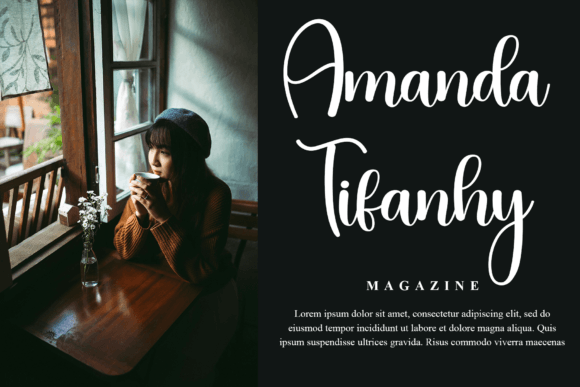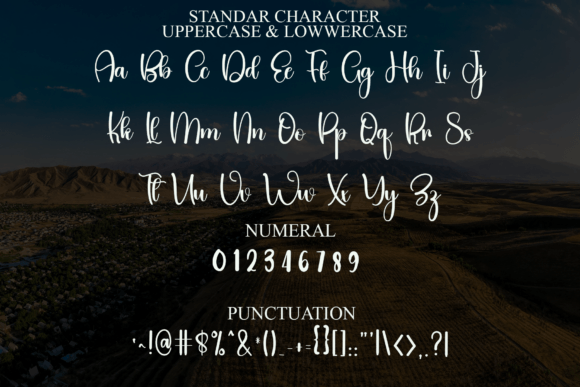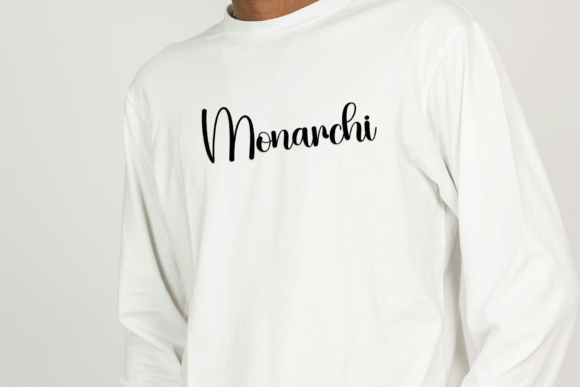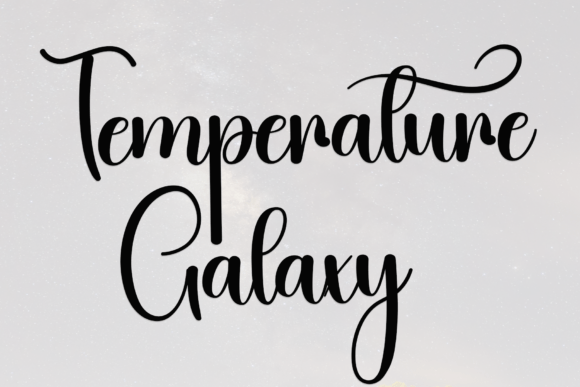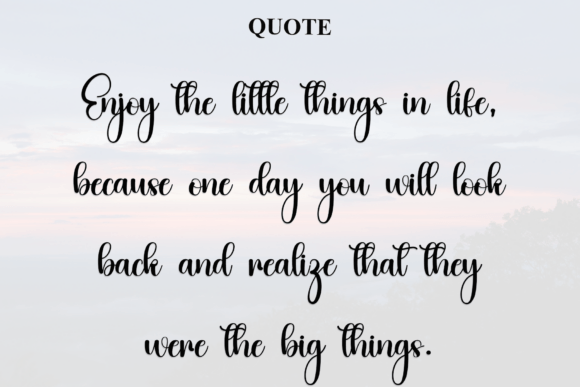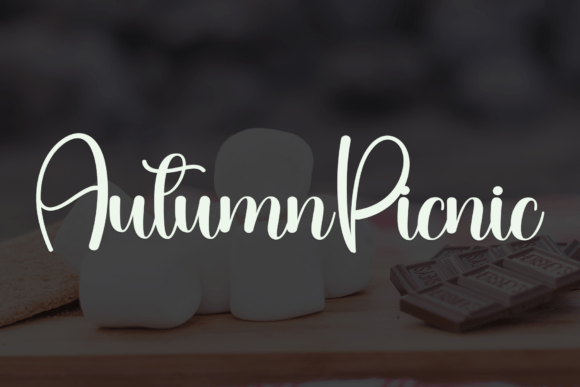
Creating Cozy Memories with Autumn Memories Font
Do you ever find yourself lost in the pages of a vintage journal or the handwritten notes of a loved one? The imperfections and quirks of handwritten text have a way of capturing our attention and evoking memories. For designers, this is a golden opportunity to infuse their projects with a personal touch.
That’s where Autumn Memories Font comes in – a bold, handwritten font that embodies the warmth and coziness of the season. With its thick, natural letters, Autumn Memories Font is perfect for projects that require a friendly and approachable feel. Whether you’re designing a wedding invitation, a holiday card, or a cookbook, this font is sure to bring a sense of nostalgia and charm.
For designers, Autumn Memories Font is a valuable addition to their toolkit. Its unique, handwritten style offers a refreshing alternative to more traditional fonts, allowing you to add a personal touch to your designs and stand out from the crowd.
Autumn Memories Font Key Features
- Font Family: Autumn Memories, with multiple styles and weights available.
- Character Count: The font includes a wide range of characters, including Latin, Cyrillic, and Greek scripts, with over 2000 glyphs.
- Unique Characteristics: The Autumn Memories font features a unique, hand-drawn design with intricate details and subtle texture, evoking a sense of nostalgia and warmth.
Designer Review: Autumn Memories Font
As a designer, I was excited to try out the Autumn Memories Font, and I must say it’s a mixed bag. On the one hand, it has some great qualities that make it suitable for certain projects. ✨ The font’s elegant, handwritten feel is perfect for adding a touch of sophistication to invitations, greeting cards, or other stationery items. The subtle imperfections and flourishes give it a sense of character that’s hard to replicate with more traditional fonts.
✨ Another plus is the font’s versatility. It comes in a range of weights and styles, making it easy to adapt to different design needs. Whether you’re looking for a bold, eye-catching headline or a delicate, cursive text, Autumn Memories has got you covered.
However, there are some limitations to consider: ⚠️ The font may not be the best choice for projects that require a high level of precision or uniformity. The handwritten feel can sometimes look sloppy or uneven, especially at smaller font sizes. Additionally, the font’s imperfections may not be suitable for clients who prefer a more traditional, clean look.
Overall, I’d say the Autumn Memories Font is a solid choice for designers who want to add a touch of elegance and whimsy to their projects. Just be aware of its limitations and use it judiciously.
- ✨ Elegant, handwritten feel perfect for invitations, greeting cards, and stationery
- ✨ Versatile, comes in range of weights and styles
- ⚠️ May not be suitable for projects requiring precision or uniformity
- ⚠️ Imperfections may look sloppy or uneven at smaller font sizes
Tips for Getting the Most Out of Autumn Memories Font
For the best results, pair Autumn Memories Font with warm and earthy colors, and use it in combination with other fall-themed elements, such as leaves and pumpkins.
Experiment with different font sizes and styles to create visual interest and hierarchy in your designs.
Autumn Memories Font is perfect for:
- Fall-themed invitations and announcements.
- Seasonal marketing materials and promotional campaigns.
- Personalized gifts and stationery.
- Graphic design projects, such as posters and flyers.
Q: What is the recommended font size for the Autumn Memories Font?
The recommended font size for the Autumn Memories Font is between 12pt and 24pt. However, this may vary depending on the specific design application and intended use of the font.